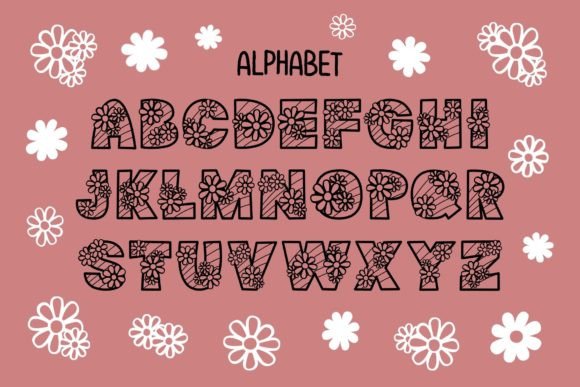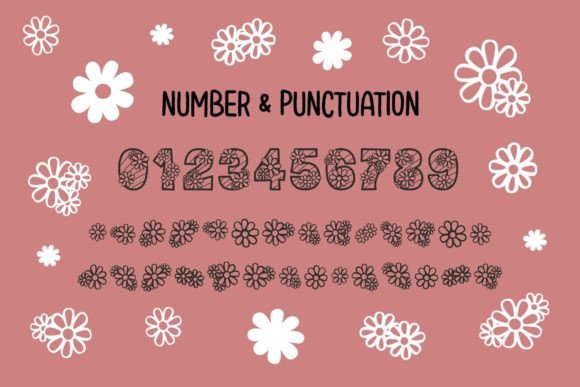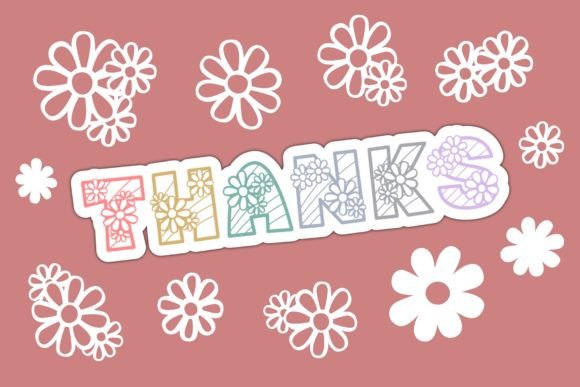
Introduction to Daisy Rainbow Font
Daisy Rainbow is a lovely decorative font.
This font is the perfect fit for all of your logos, branding, social media, crafty DIY projects, and much more .
Why Choose Daisy Rainbow Font?